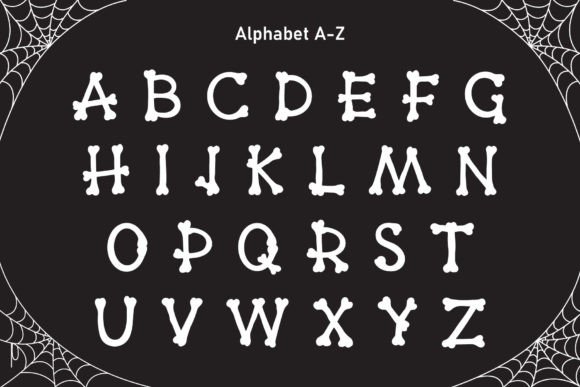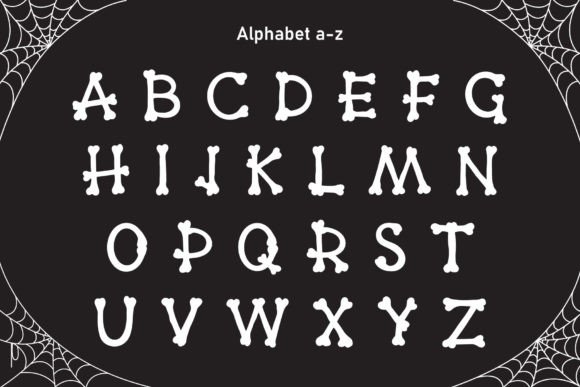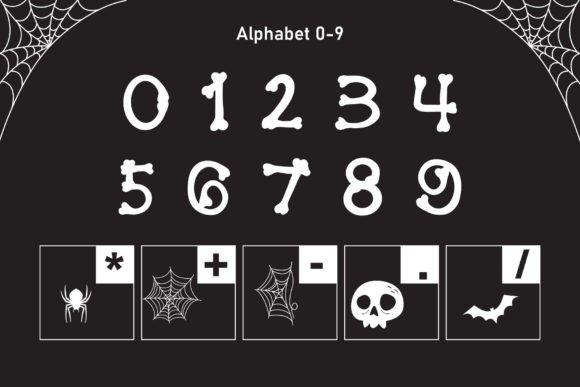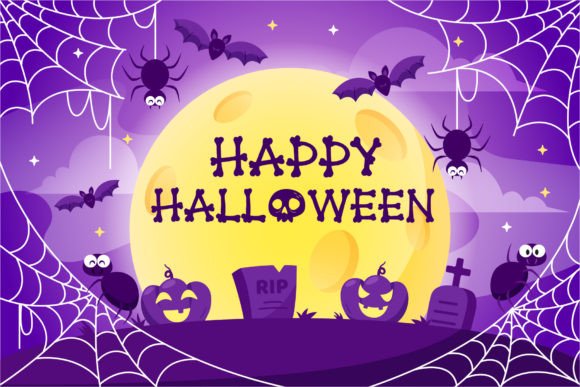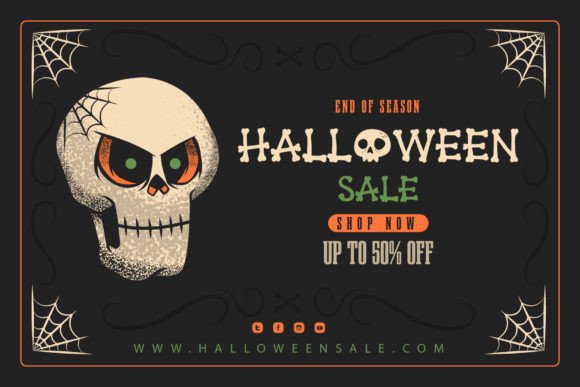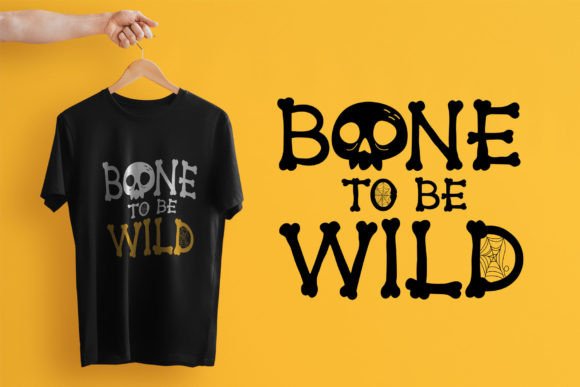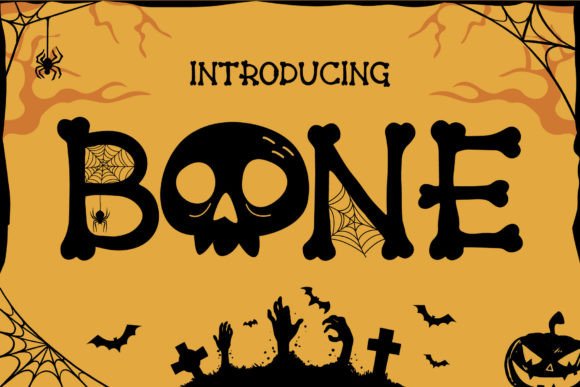
Bone Font: The Spooky yet Fun Decorative Font for Halloween and Beyond
Are you looking for a font that screams Halloween fun? Look no further than Bone Font! This decorative font is perfect for designers and crafters who want to add a spooky yet playful touch to their designs. In this article, we’ll dive into the world of Bone Font, exploring its features, uses, and why it’s a must-have for your design arsenal.
What is Bone Font?
Bone Font is a fun and quirky decorative font that exudes a Halloween vibe. Its unique design makes it suitable for a wide range of projects, from Halloween-themed designs to children’s party materials. The font’s playful and spooky charm makes it perfect for designers who want to create eye-catching and engaging designs.
Features of Bone Font
Bone Font comes with several features that make it a versatile and practical choice for designers. Some of its notable features include:
- Unique Design: Bone Font boasts a one-of-a-kind design that’s sure to grab attention. Its Halloween-inspired characters are perfect for creating spooky yet fun designs.
- High-Quality Letters: The font features high-quality letters that are clear and legible, making it suitable for a wide range of projects.
Uses of Bone Font
Bone Font is an incredibly versatile font that can be used for a wide range of projects. Here are some ideas to get you started:
- Halloween Themes: Create spooky yet fun Halloween-themed designs, such as party invitations, decorations, and treats.
- Children’s Themes: Use Bone Font to create engaging and playful designs for children’s parties, nursery decor, and kids’ apparel.
- Logos: Create eye-catching logos for businesses, events, or products with a Halloween or playful twist.
- T-Shirts and Apparel: Design fun and spooky T-shirts, hoodies, and other apparel for Halloween enthusiasts.
- Print Designs: Use Bone Font for print designs, such as brochures, flyers, posters, and business cards.
- Website Headers: Add a playful touch to your website headers and make your site stand out.
- Photo Frames and Posters: Create spooky yet fun photo frames and posters for Halloween or other themed events.
Tips for Using Bone Font
Here are a few tips for using Bone Font effectively in your designs:
- Experiment with Colors: Try out different colors and combinations to find the perfect match for your design.
- Play with Sizes: Experiment with different font sizes to create visual interest and hierarchy in your design.
- Mix and Match: Combine Bone Font with other fonts to create a unique and eye-catching design.
Bone Font is a fun and versatile decorative font that’s perfect for designers and crafters who want to add a spooky yet playful touch to their designs. With its unique design, high-quality letters, and ease of use, Bone Font is a must-have for your design arsenal. Whether you’re creating Halloween-themed designs, children’s party materials, or simply want to add a playful touch to your projects, Bone Font is the perfect choice.